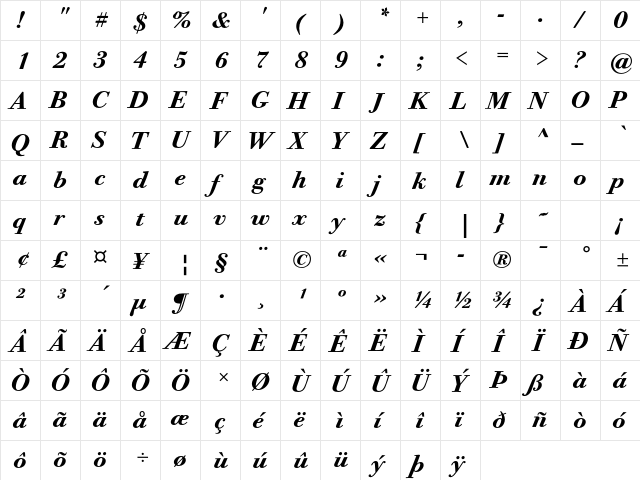
Bodoni Twelve ITC Std Bold Ita Font Preview
| Designer | Janice Fishman, Holly Goldsmith, Jim Parkinson, Sumner Stone |
Design Context for Bodoni Twelve ITC Std Typeface
Bodoni Twelve ITC Std offers clean, dependable letterforms without strong stylistic allegiance, making it a practical choice for designers who need flexibility. Its italic angle brings a sense of urgency and motion to the letterforms. The heavy weight commands attention and anchors typographic hierarchies.
Pro Tip: Use Bodoni Twelve ITC Std for emphasis, pull quotes, and subheadings where its slanted energy can add rhythm to the layout.